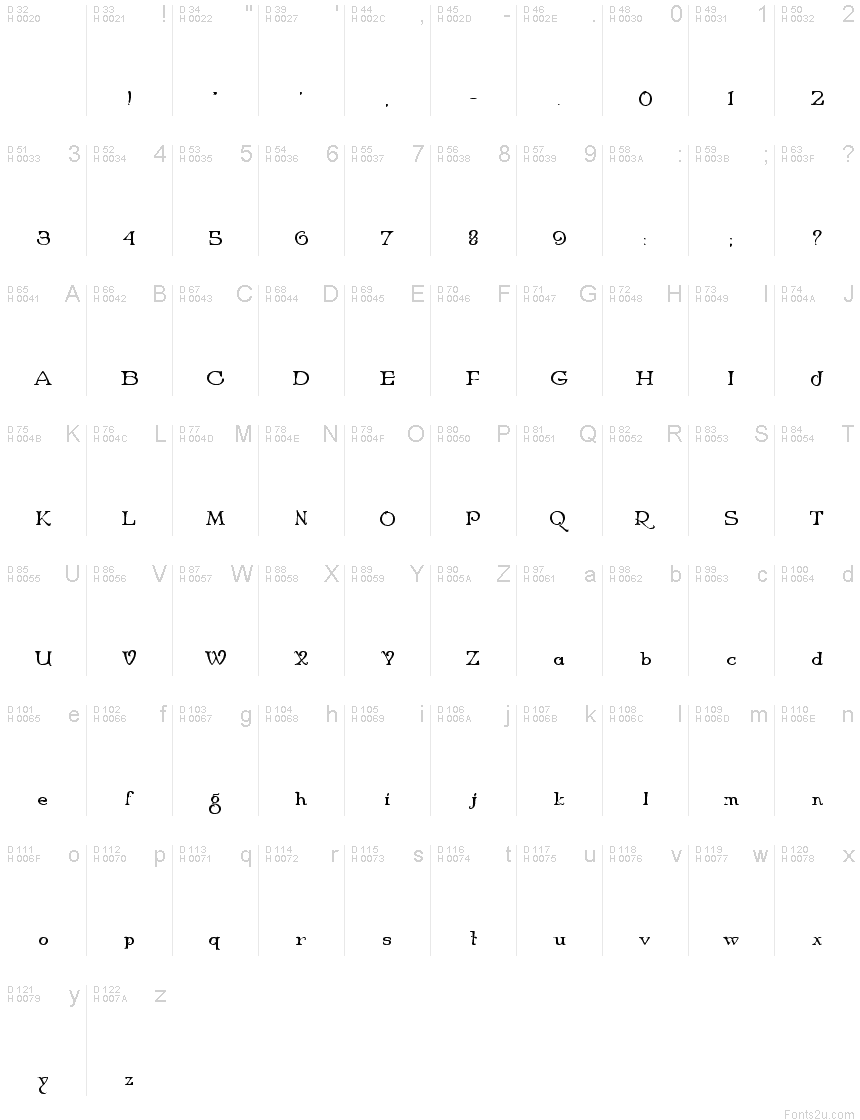
Niederwald
Niederwald by David F. Nalle is a free medieval display font shaped by tall tapering strokes, rounded bowls, and soft clubbed tops that keep the lettering decorative without turning rigid. The rhythm feels slightly calligraphic, with broad curves and narrow vertical pulls giving the design a hand-cut, old-book character.
That texture makes sense on tavern signs, fantasy book covers, themed event posters, game titles, and brewery labels where a historical tone matters more than neutrality. Short headings especially benefit from the mix of pointed uprights and rounded interior shapes, which gives the font a period feel without reading like a strict blackletter revival.